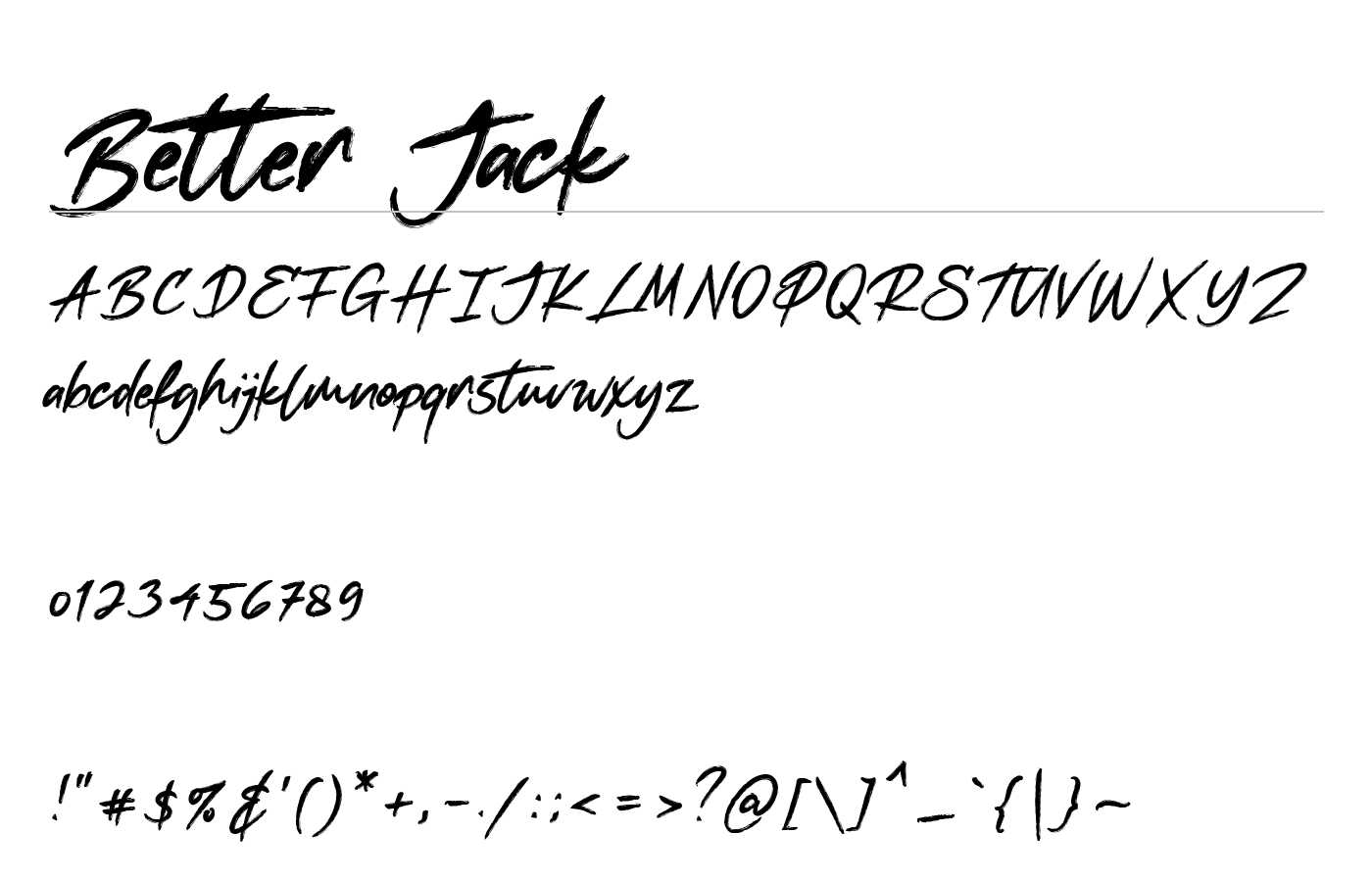
Better Jack is a dynamic brush script font with a casual, hand-painted feel created by its textured, irregular strokes and energetic letterforms. Its lively, informal style makes it perfect for branding, posters, and creative projects that want to convey a personal, artistic touch and approachable personality. This font works best in display uses where its expressive character can stand out and add vibrant, handwritten charm.
Better Jack Font
About Better Jack Font